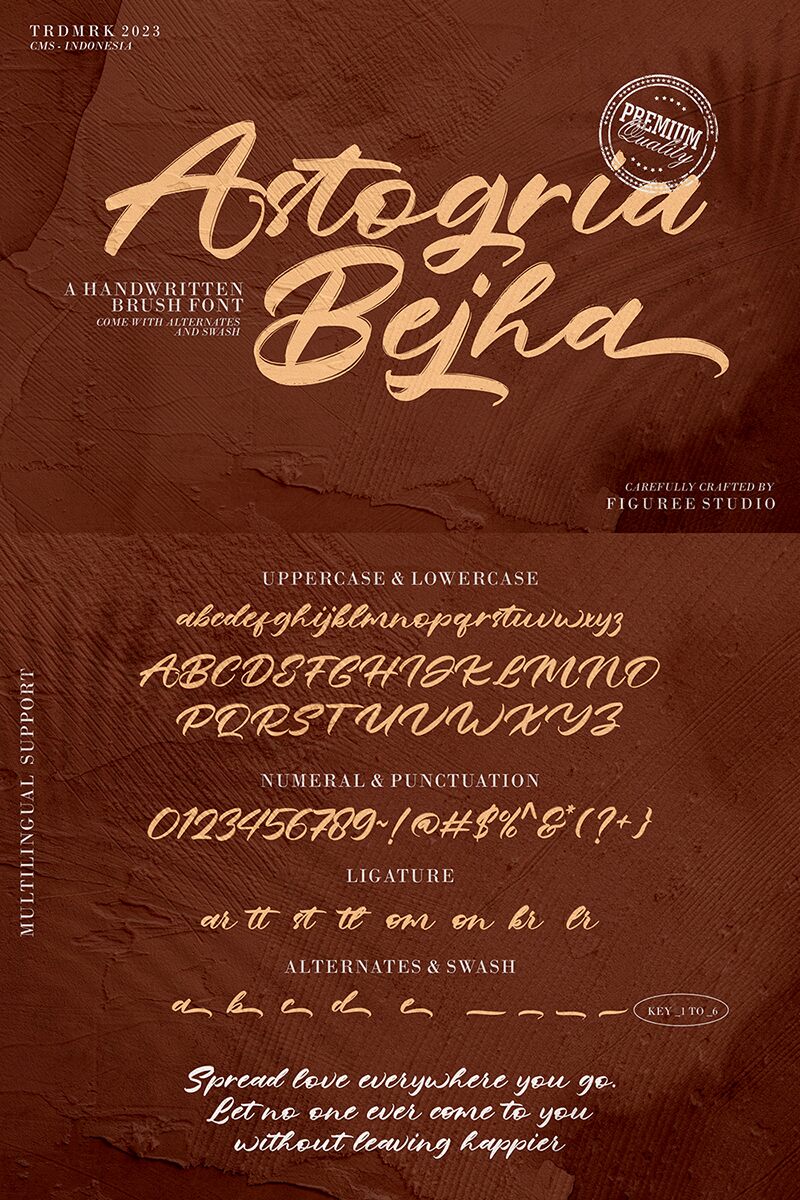
Astogria Bejha font by Figuree Studio is a free brush font that beautifully captures the elegance, fluidity, and expressiveness of contemporary script typography. Created to add a touch of casual elegance with an artistic flair, it can be the optimal font choice for users looking for handwritten letterforms in one package.
From branding to business cards, logos to labels; headings, posters; flyers and print advertisements. Web header images and social media graphics are some other possible digital uses on Areas of use might be stickers or tattoos.